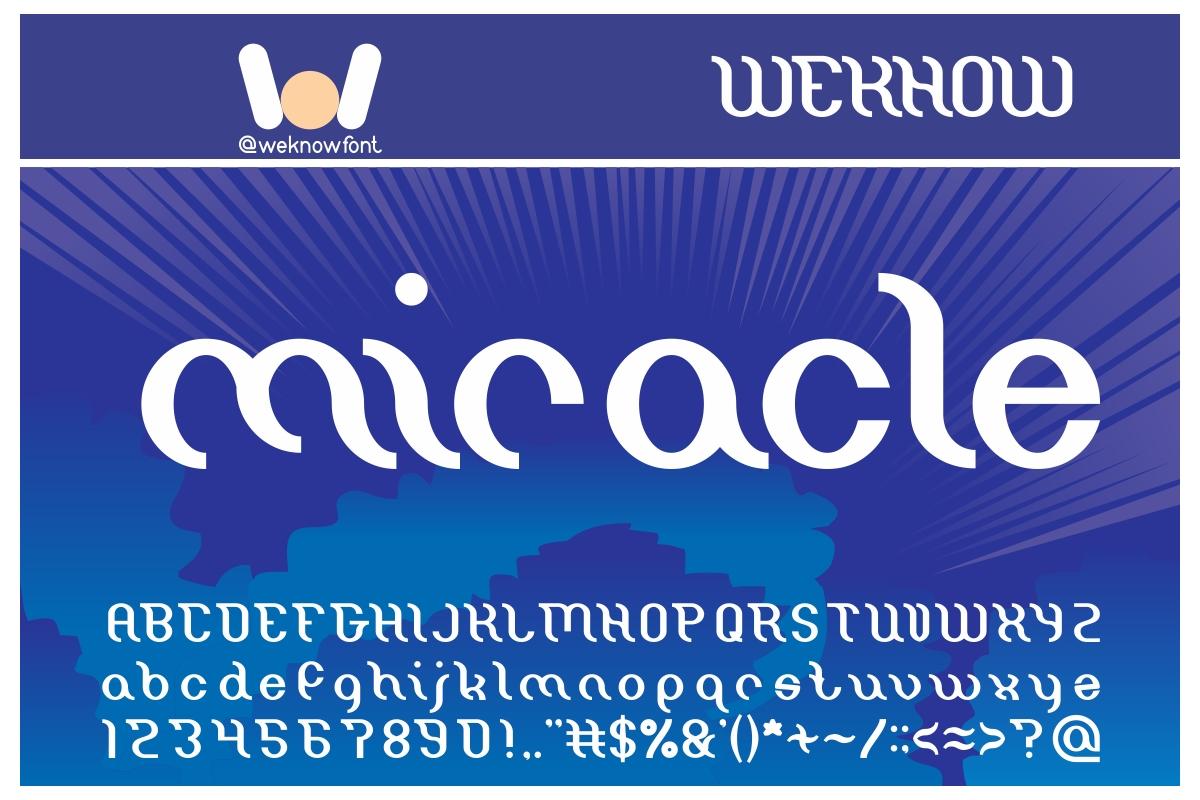
Miracle Font Description
Miracle is a neat and adaptable display font. Trendy and casual, this font will elevate each of your designs. No matter the topic, Miracle will be an incredibly asset to your fonts’ library, as it has the potential to elevate any creation.